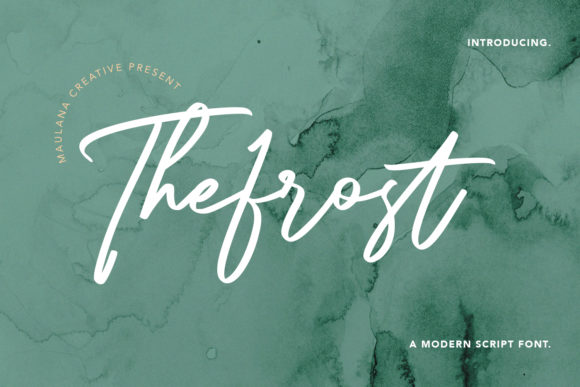
Embark on a Typographic Journey with The Frost Modern Script Font - Where Elegance Meets Authenticity
In a world of digital monotony, The Frost Modern Script Font emerges as a breath of fresh air, a font crafted with passion and precision to bestow your designs with an authentic handcrafted charm. Experience the allure of this modern handwritten font, a creation of Maulana Creative, and unleash your creativity like never before.
The Frost's captivating allure lies in its incredibly versatile nature, gracefully adapting to a myriad of design projects, from heartfelt wedding invitations to captivating social media posts. Its elegant strokes dance across the page, evoking a sense of timeless beauty that leaves an unforgettable impression.
Indulge in the artistry of The Frost's carefully crafted characters, each meticulously designed to convey emotion and authenticity. Its smooth curves and delicate flourishes lend a touch of sophistication to your designs, effortlessly elevating them to new heights of visual appeal.
With The Frost at your fingertips, you'll discover endless possibilities to showcase your creativity. Craft stunning logos that command attention, design eye-catching posters that captivate audiences, and create heartfelt greeting cards that touch hearts. The Frost's versatility knows no bounds, allowing you to weave your design magic across a spectrum of projects.
Don't settle for ordinary fonts that blend into the background. Embrace the power of The Frost Modern Script Font and let your designs bloom with individuality and charm. Experience the transformative power of authentic typography and elevate your creative vision to new heights.